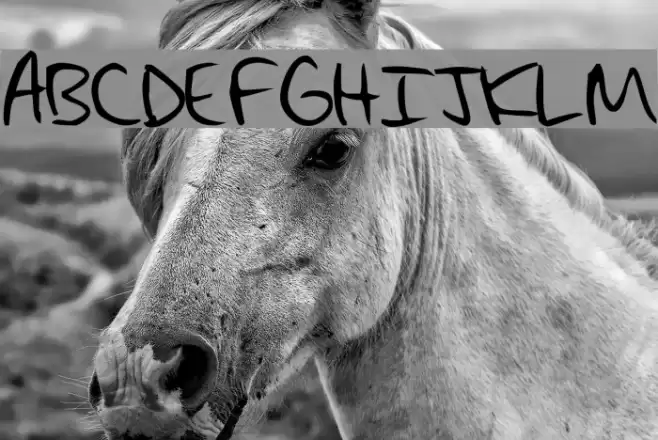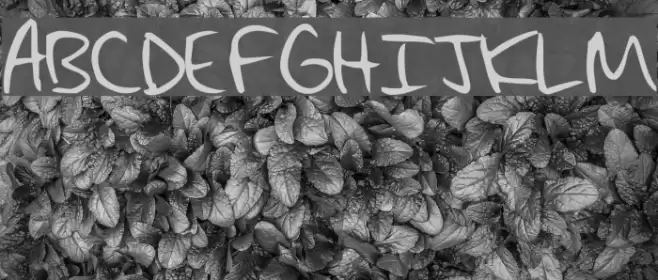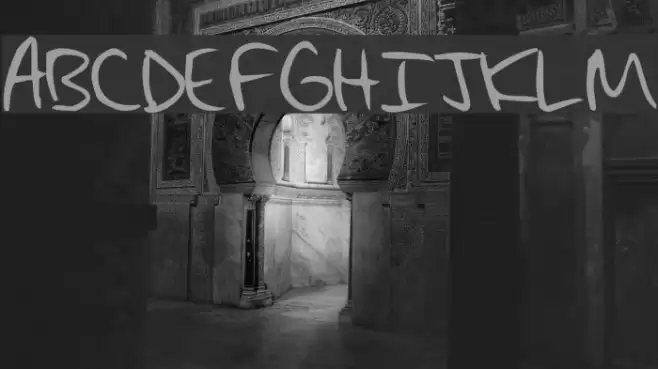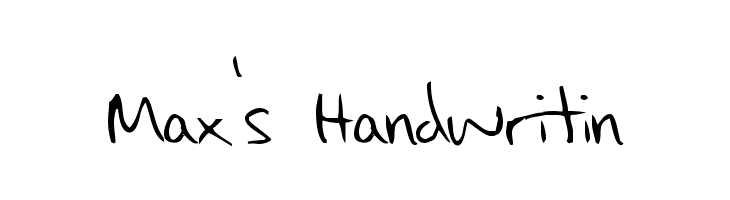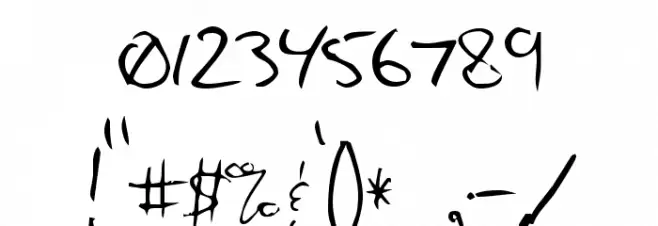
Max's Handwritin Font
Max's Handwritin Description
This font exudes a casual and personal touch, reminiscent of authentic handwriting. Each character is crafted with a natural flow, capturing the essence of a handwritten note. The strokes vary in thickness, adding a dynamic and lively feel to the text. The uppercase letters are bold and slightly irregular, while the lowercase letters maintain a consistent style, enhancing readability. The numerals and special characters are designed to match the overall handwritten aesthetic, making them blend seamlessly with the letters. This font is perfect for projects that require a personal, informal, and approachable look.
A casual, handwritten-style font with dynamic strokes and a personal touch from Uncategorized fonts.
- Proposed Projects: Ideal for greeting cards, personal blogs, informal invitations, and creative projects that require a handwritten feel.
- Overall Style: Casual, Personal
- Use Case: Headlines, Informal text, Creative projects